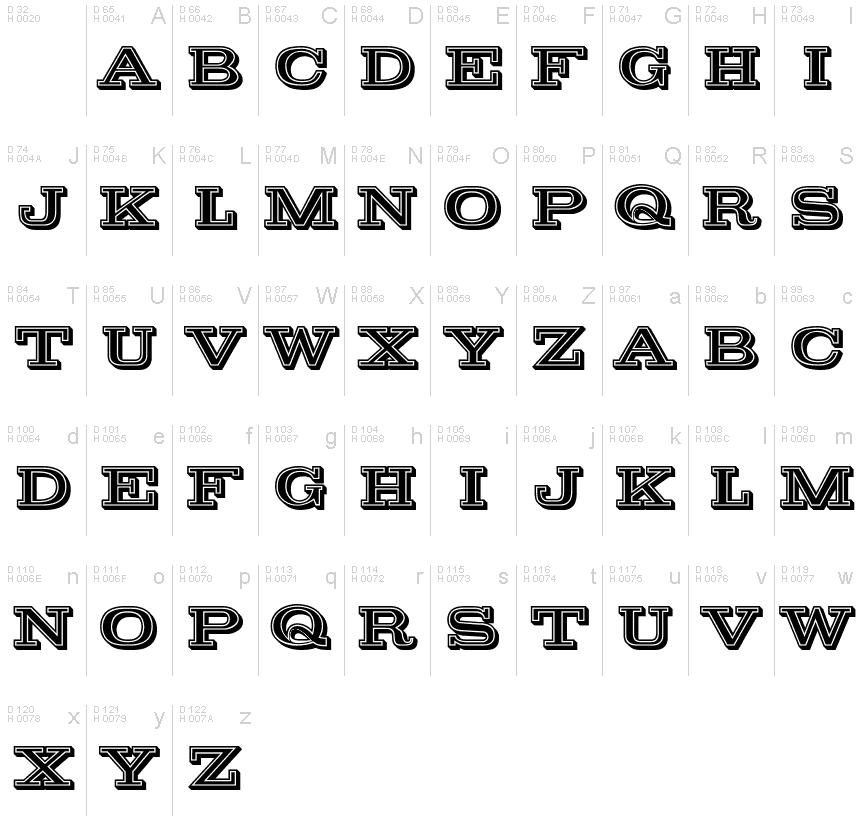
Thomson 3D Filled Regular
Thomson 3D Filled is a cool 3d serif typeface designed by Vladimir Nikolic.
It comes in Regular, 3D, and 3D Filled variants!